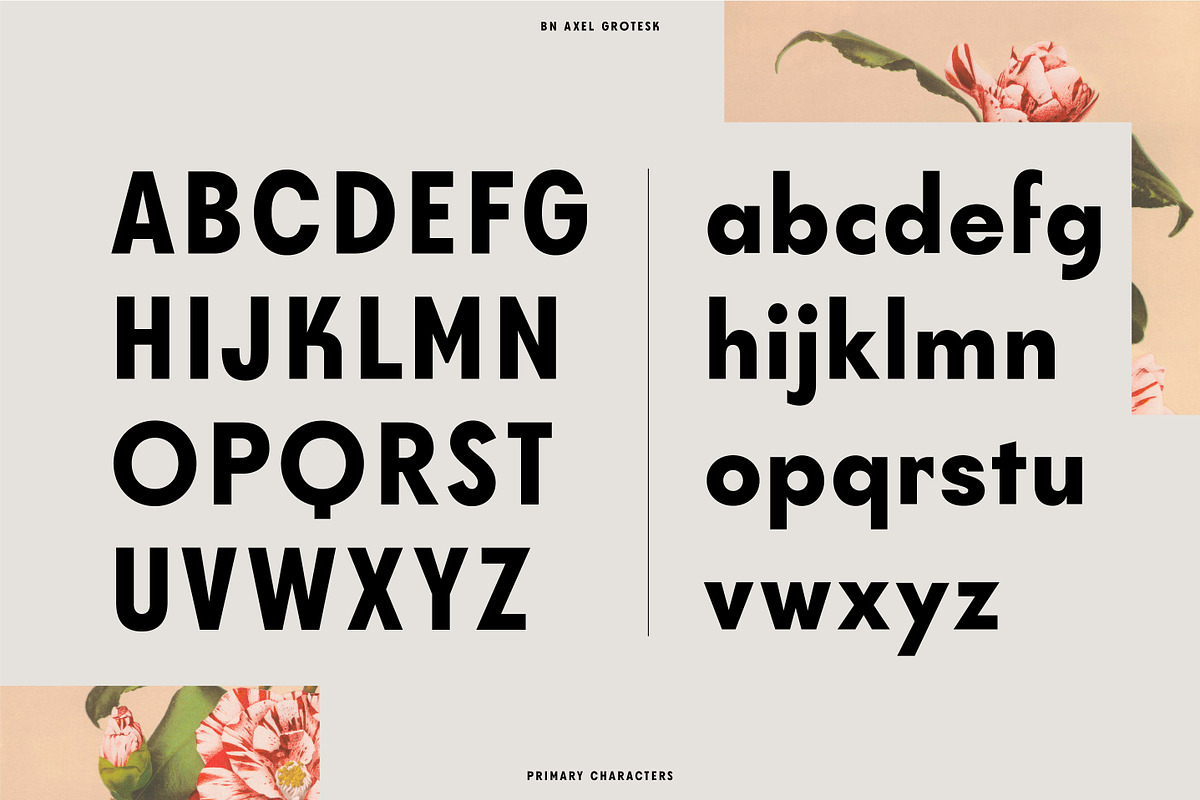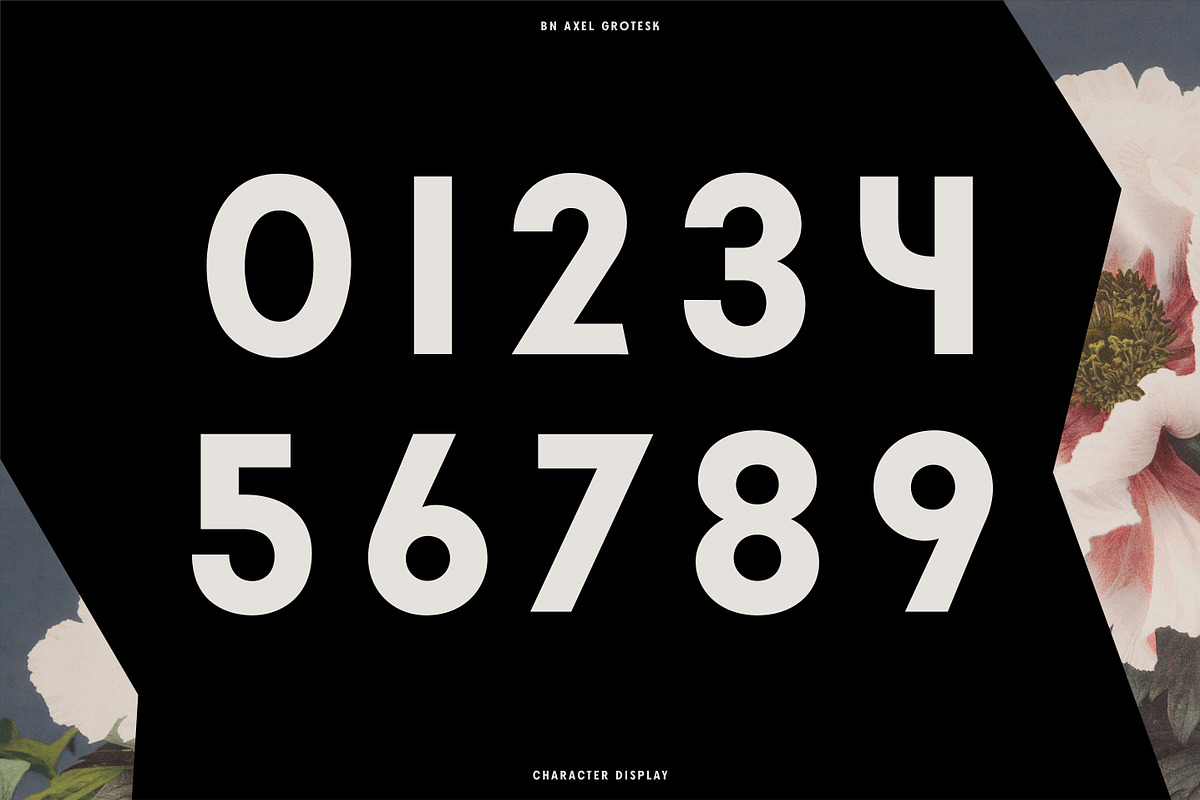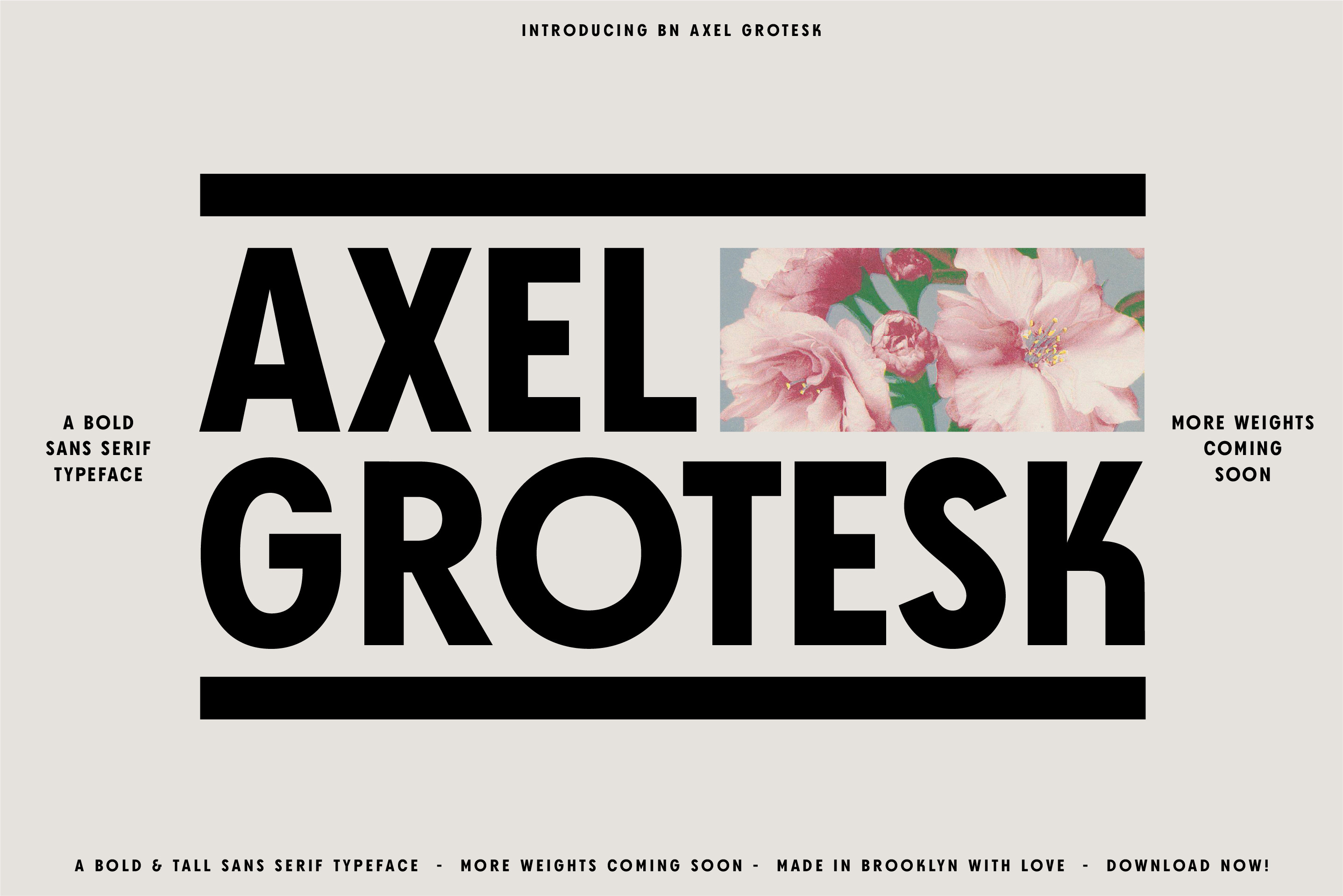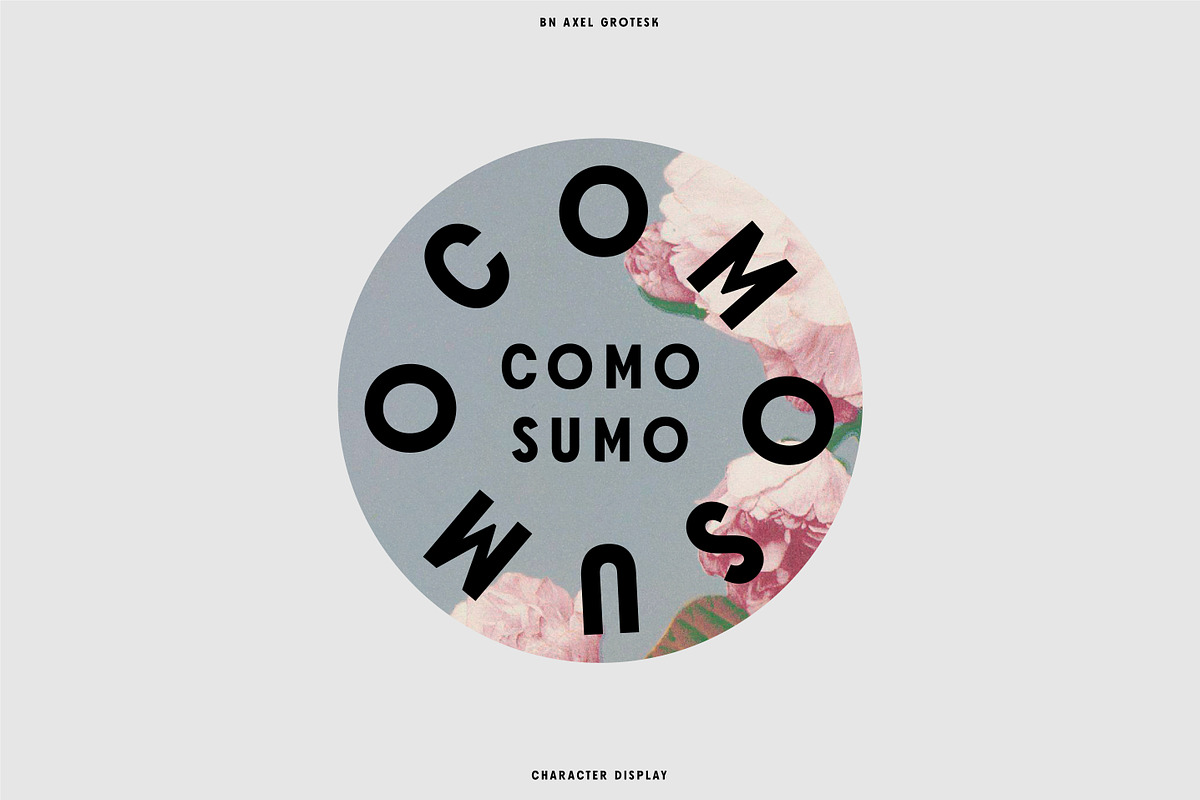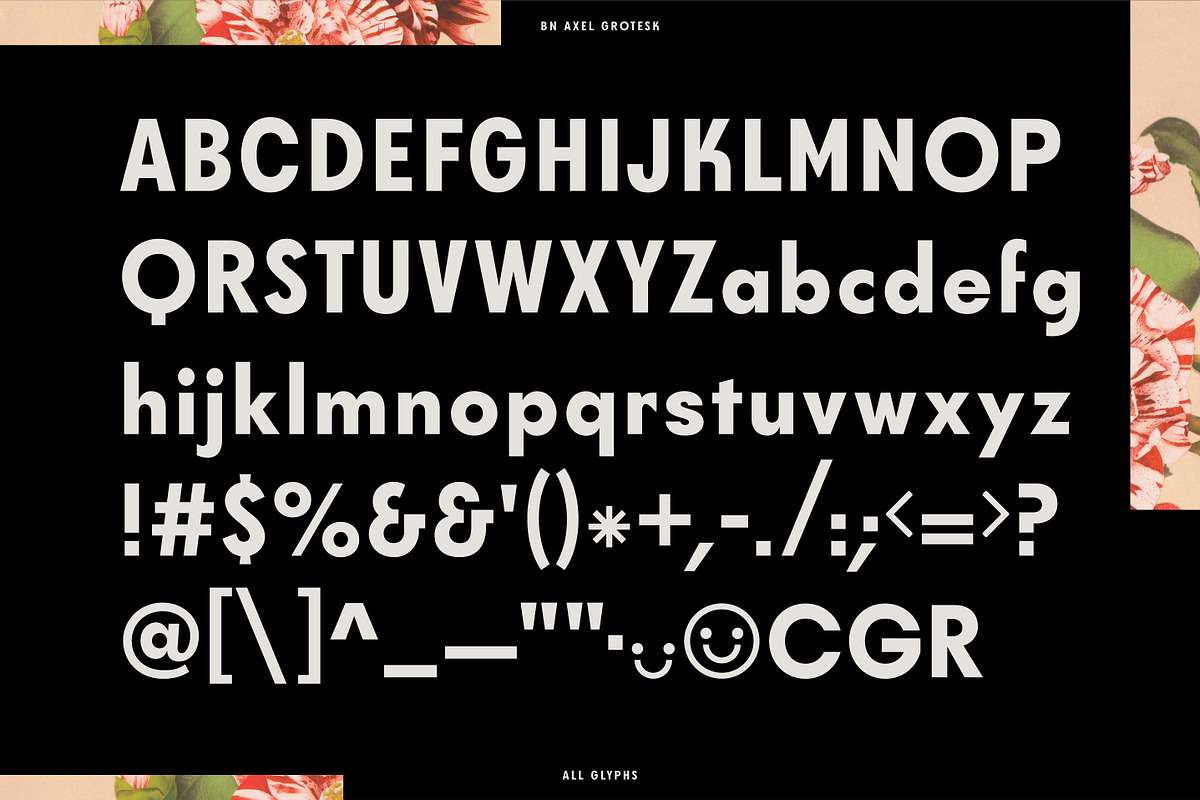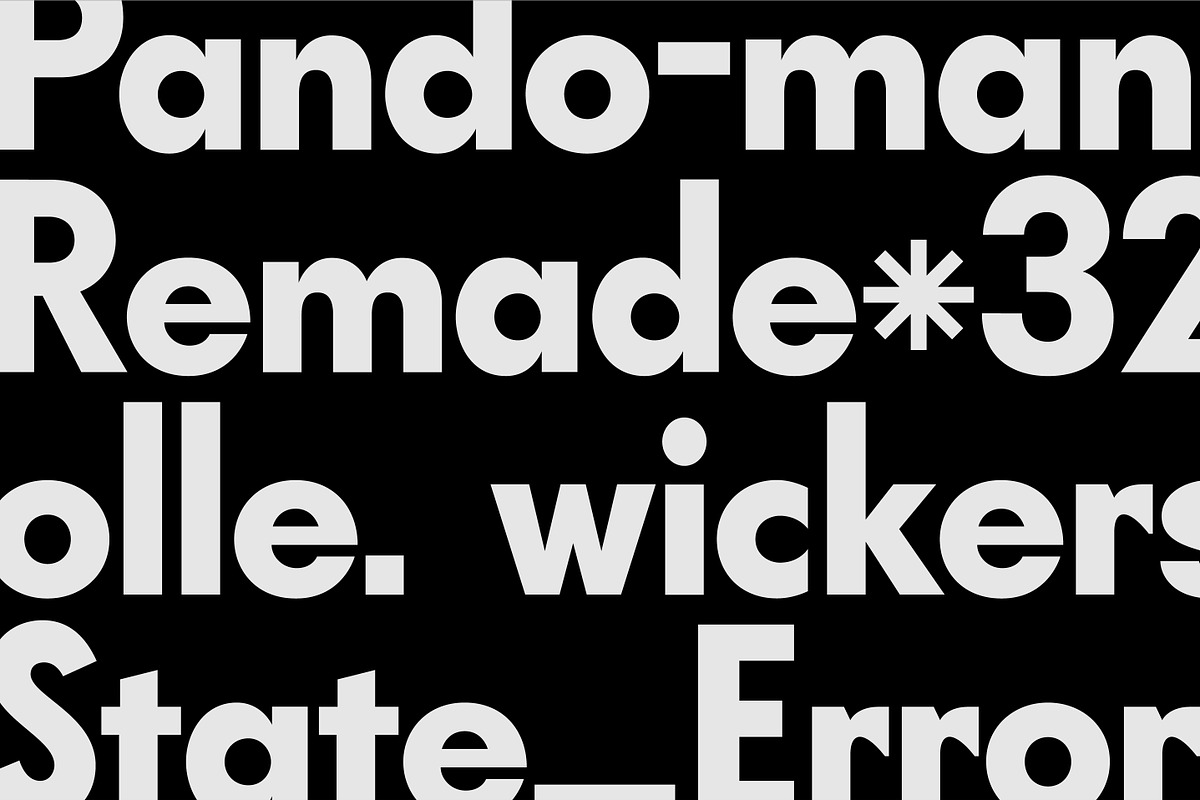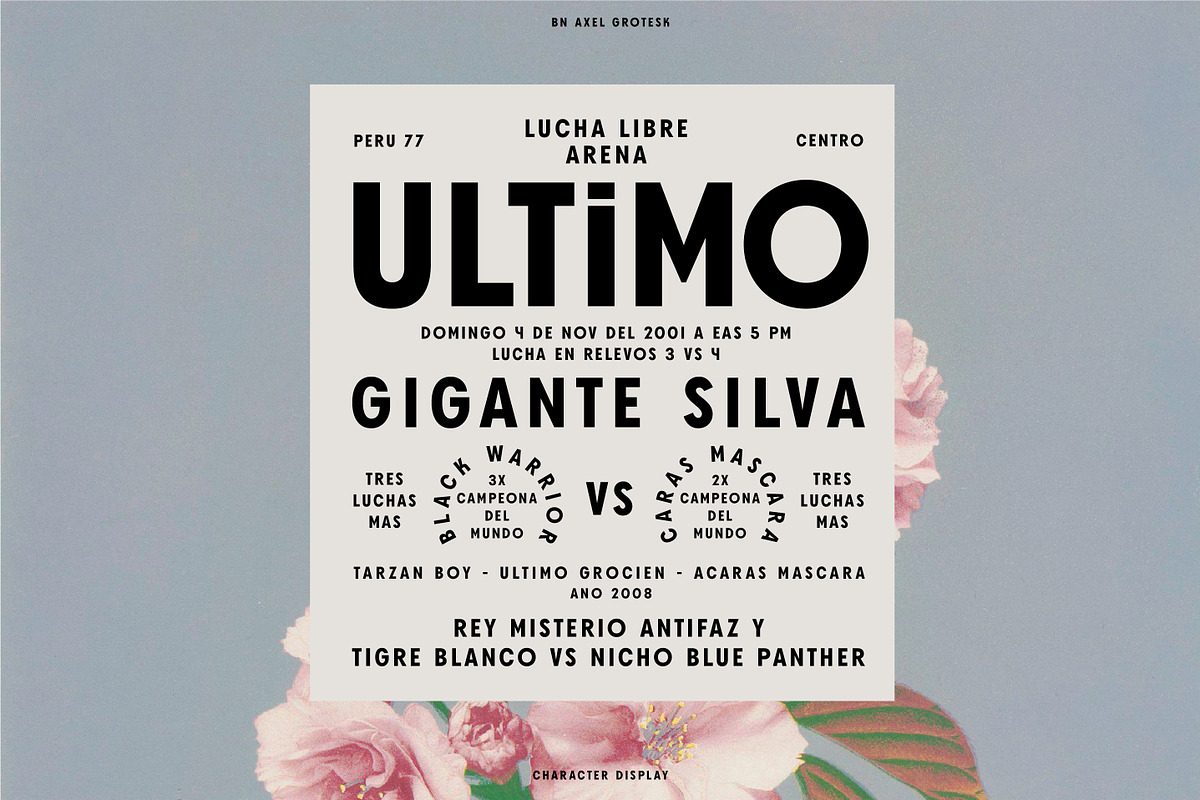
Axel Grotesk - A Sans Serif Typeface
Introducing BN Axel Grotesk.
A tall and bold sans serif typeface with a personality. Give your design a custom look with a balance between formal and unique letterforms. Download now and get creative!
Note that this typeface does not contain accented or certain special characters and should be used for standard english or display purposes.